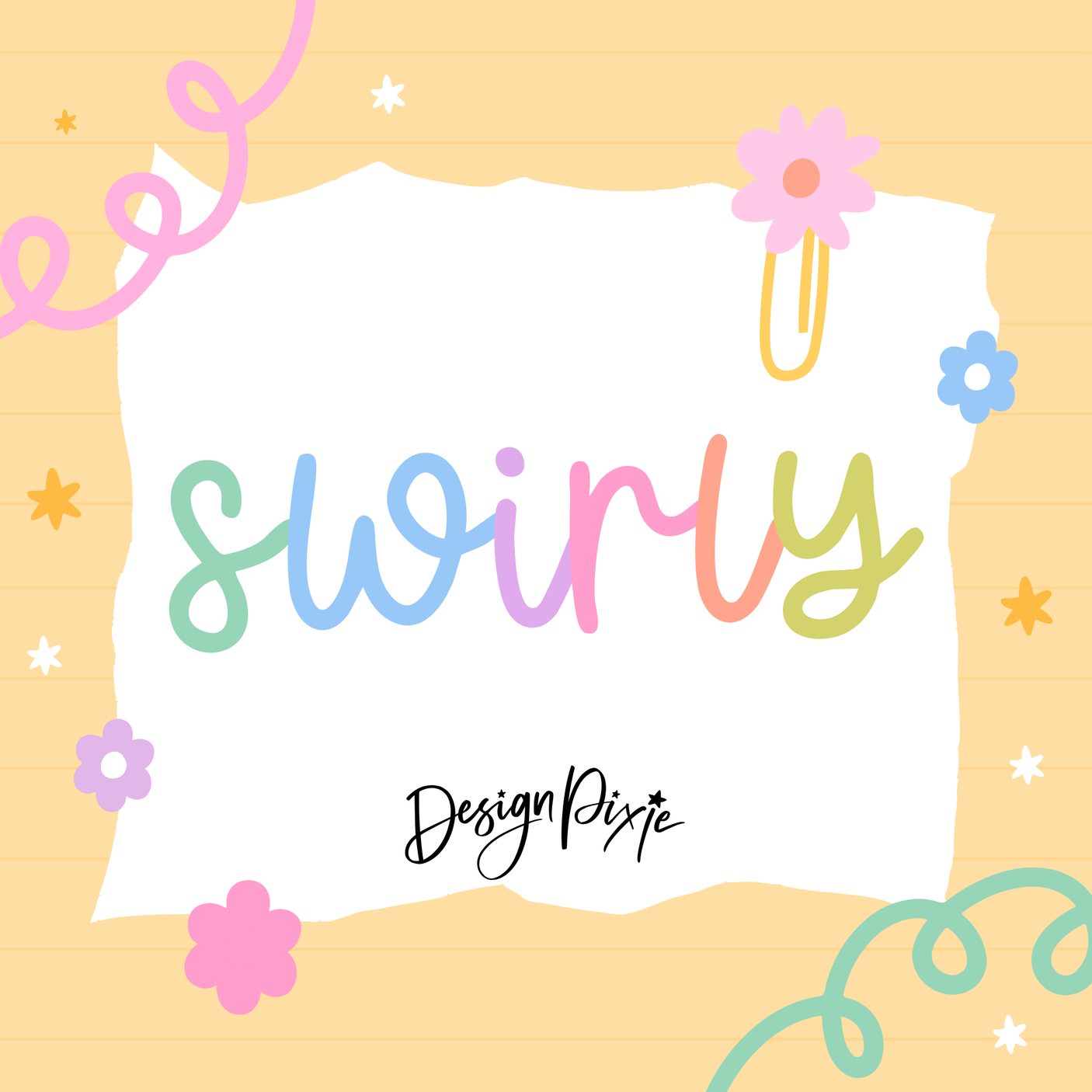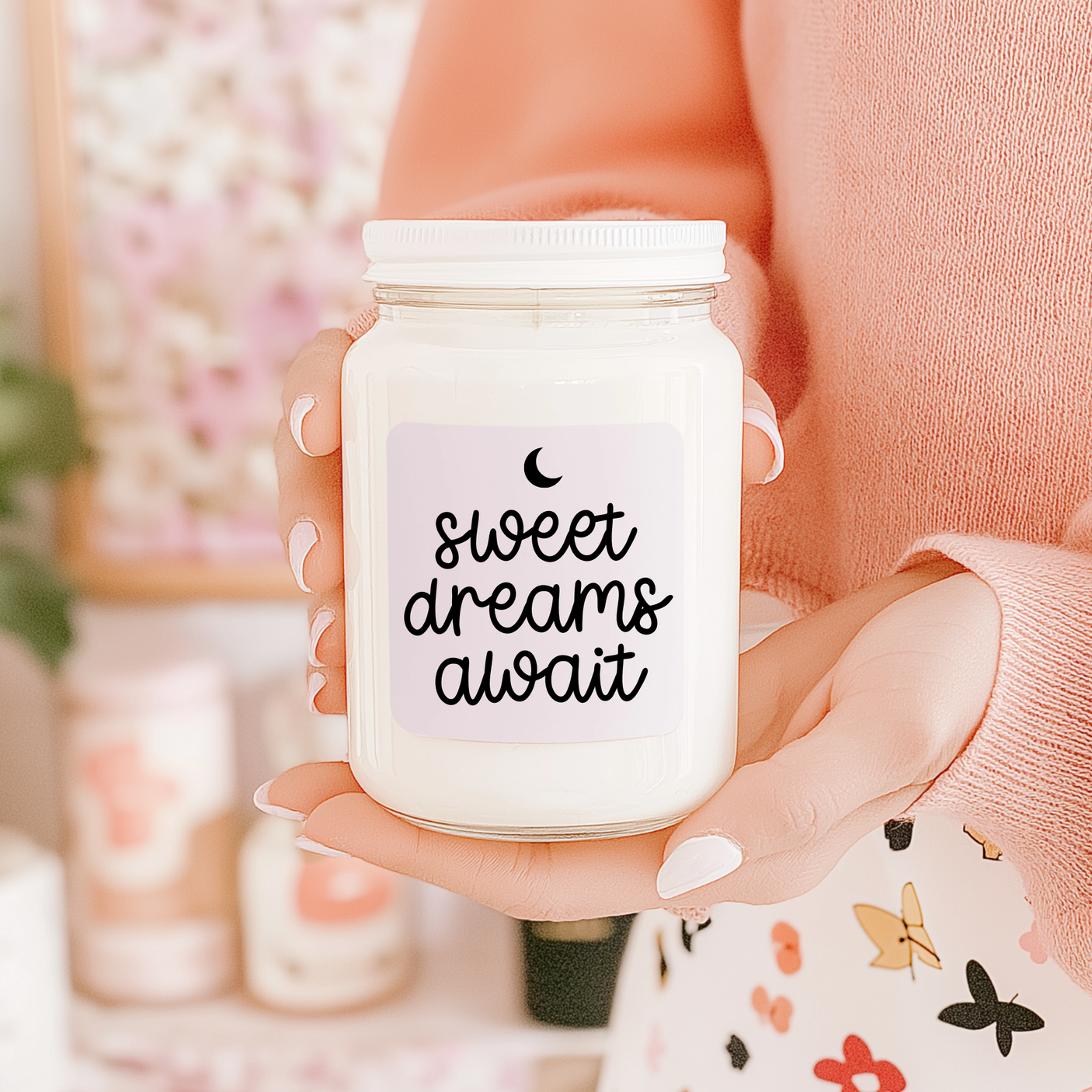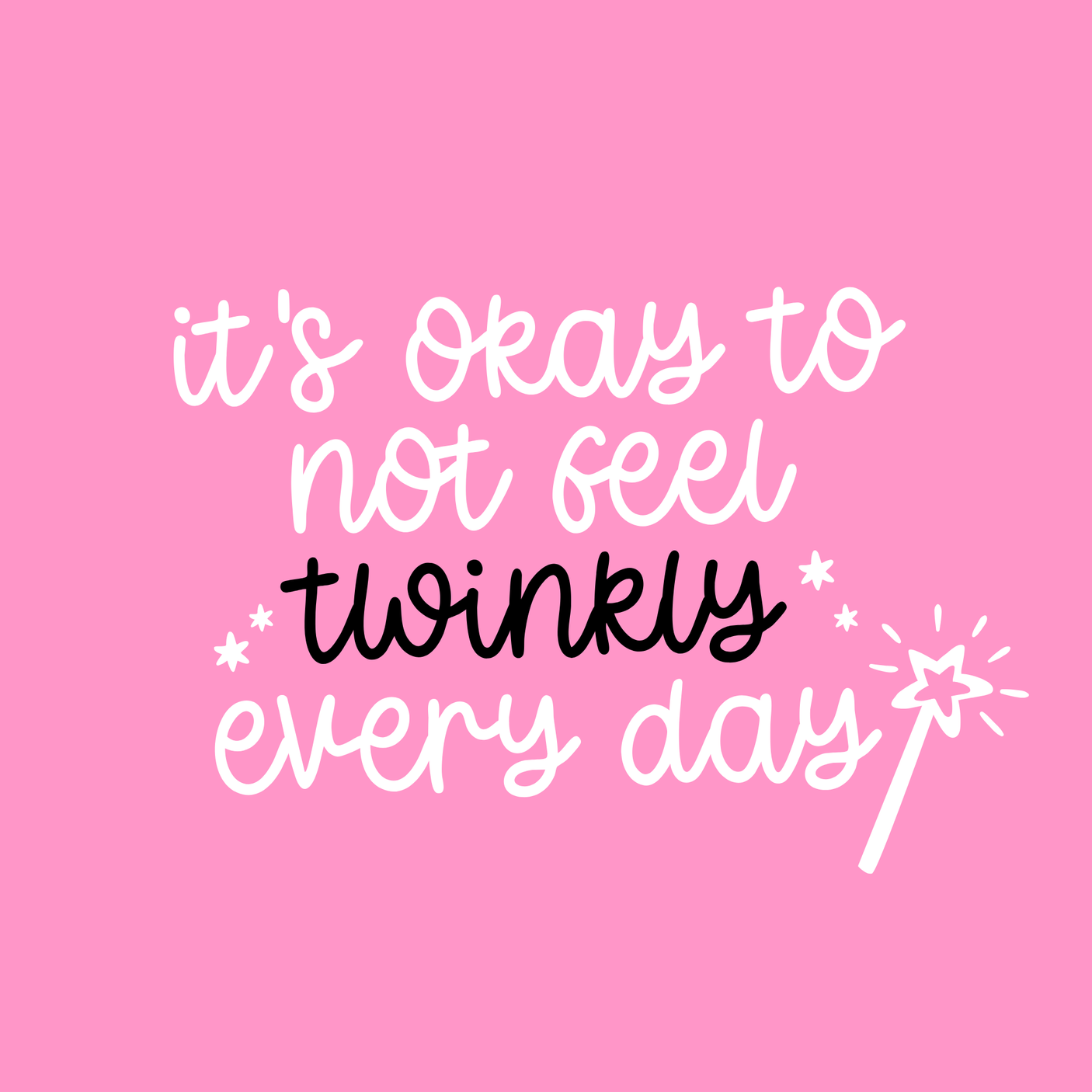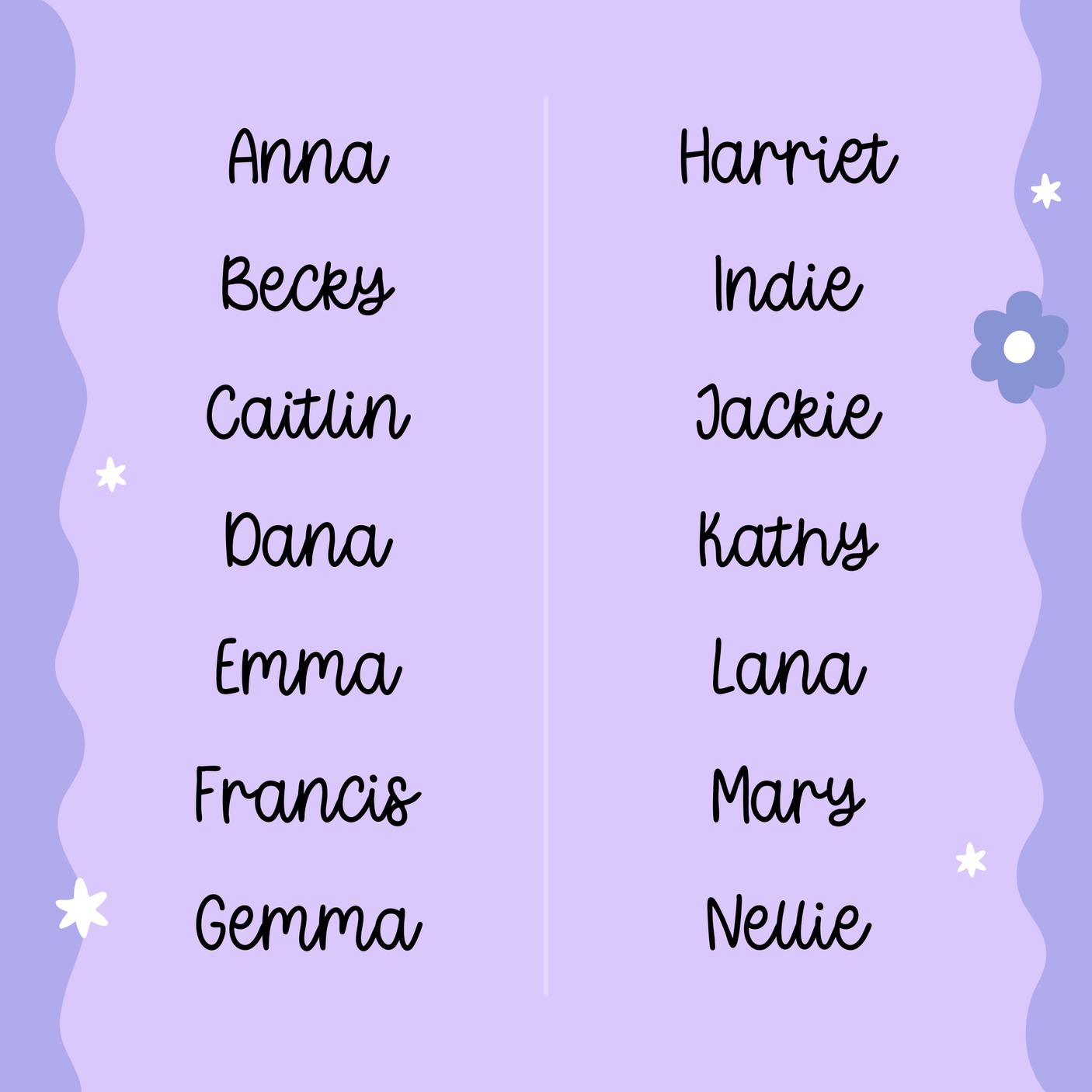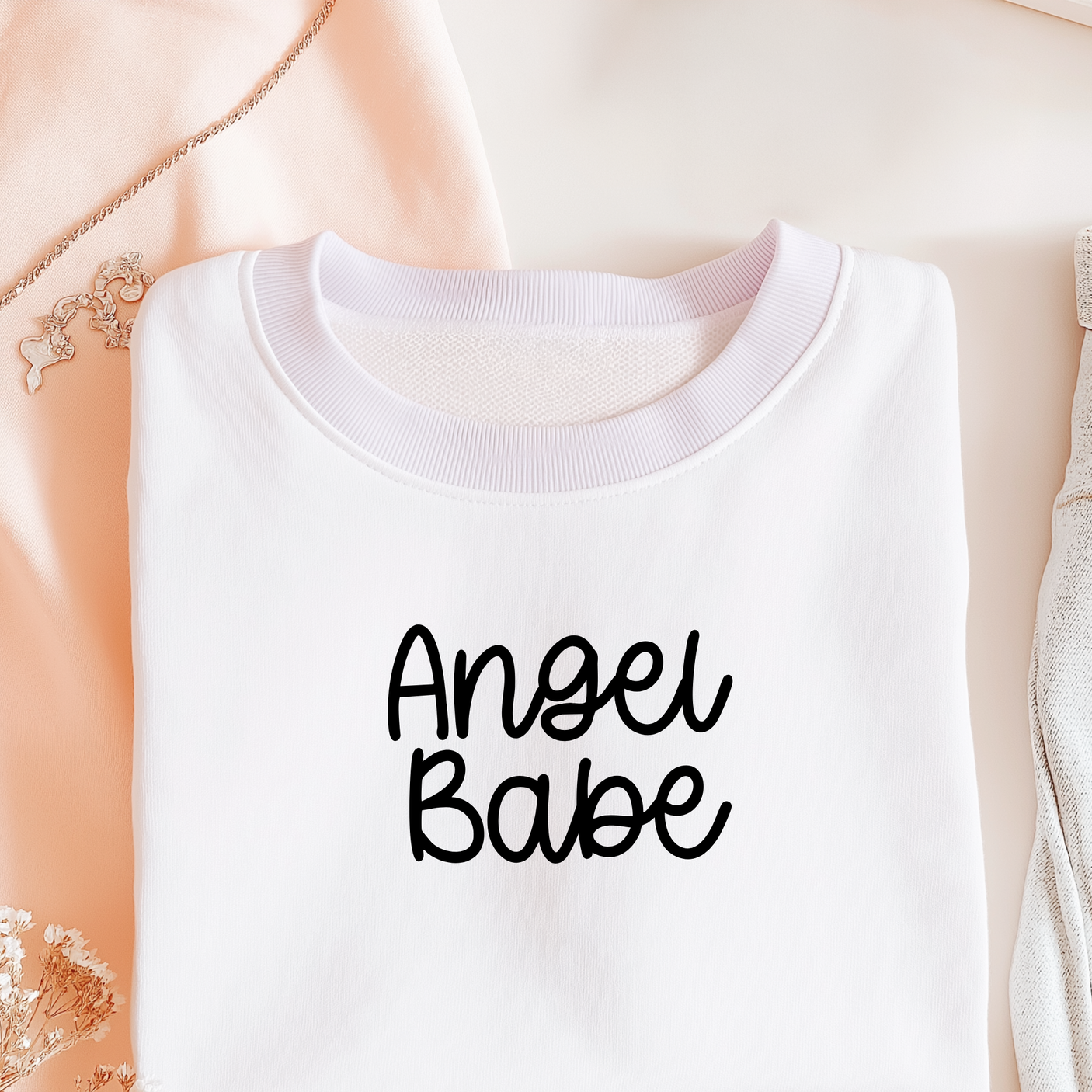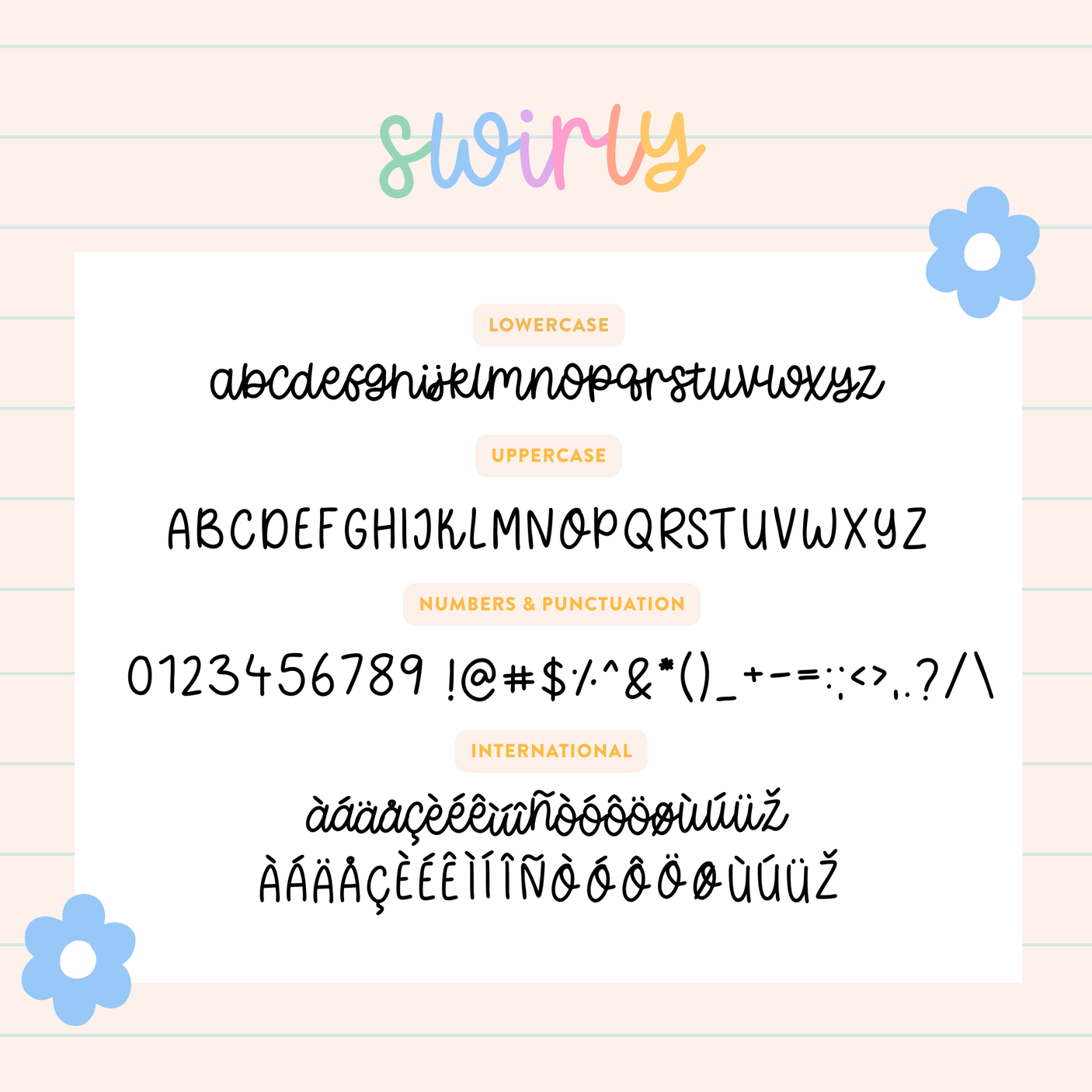
Swirly Font
Meet Swirly, your new go-to handwritten font for anything that needs a sweet, personal touch. This monoline script is smooth, cute, and easy to read, making it perfect for custom names, lettering quotes, product designs, labels, stationery, branding, and all your personalized creations.
Swirly has that warm handwritten feel your customers adore. Whether you're making tumblers, stickers, shirts, tags, digital products, or heartfelt gifts, this font adds soft charm to every word.